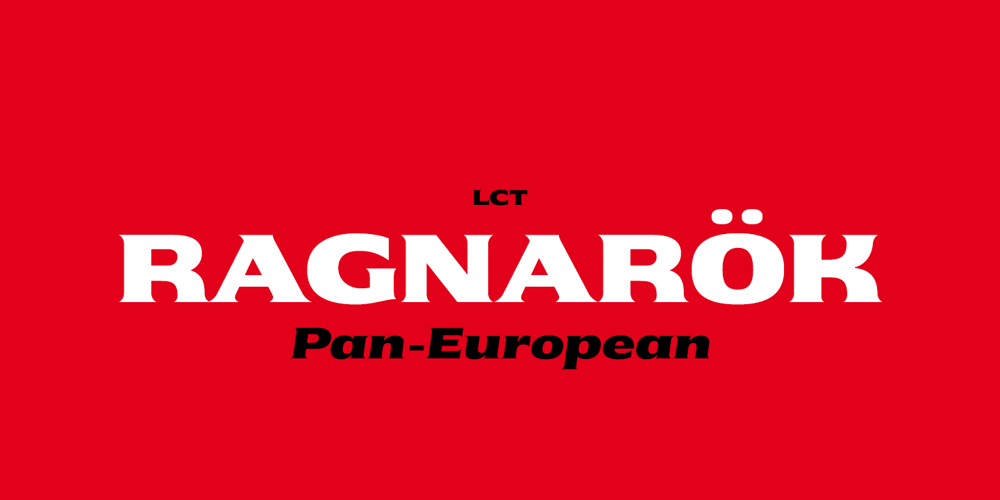
LCT Ragnarök PE Font Family was designed by Quentin J. Stavinsky and published by LCT. LCT Ragnarök PE contains 2 styles and family package options. The LCT Ragnarök is inspired by the cinematographic universe. Its thick and generous shape makes this typeface naturally stand out. In addition, its lines embody soft serifs thus adding elegance to it. This original font endows two styles; regular and slant. It is an asset for the creation of titles, logos or even generics. LCT Ragnarök encompasses a rich alphabet going from Latin PRO going to Greek , Polytonic Greek and Cyrillic.